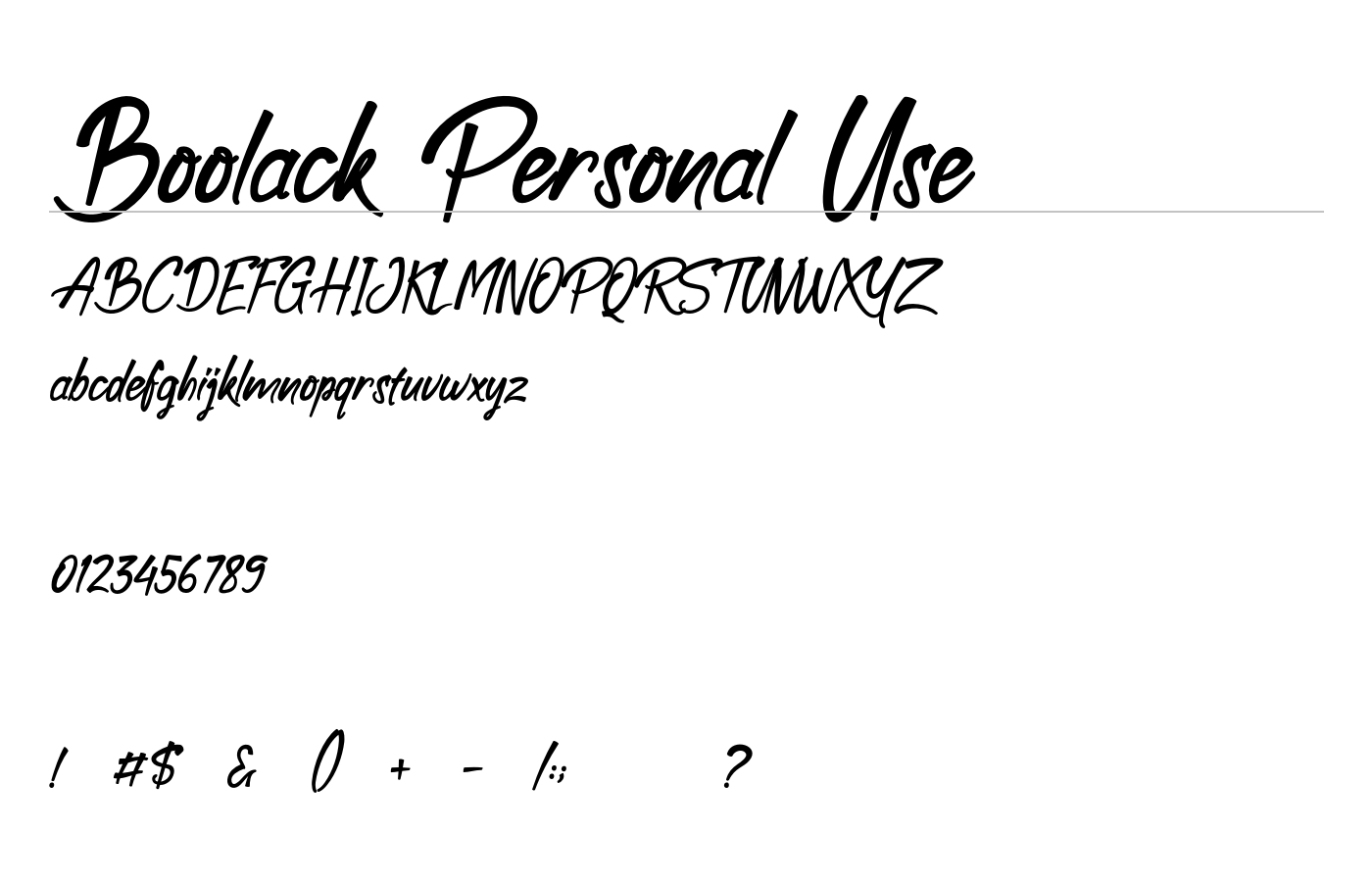
Boolack Personal Use is a lively script font that features a casual, handwritten style with smooth, flowing strokes and a slightly slanted posture. Offering a medium weight and a balanced x-height, it combines elegance with a playful, informal charm, making it ideal for creative projects, invitations, and branding that seek a personal, approachable touch. Its clear legibility and dynamic character shapes work well for headlines, logos, and decorative text where a warm and friendly mood is desired.
Boolack Personal Use Font
About Boolack Personal Use Font
| Font family | Boolack Personal Use Font |
| Designer | Vaca Tama |